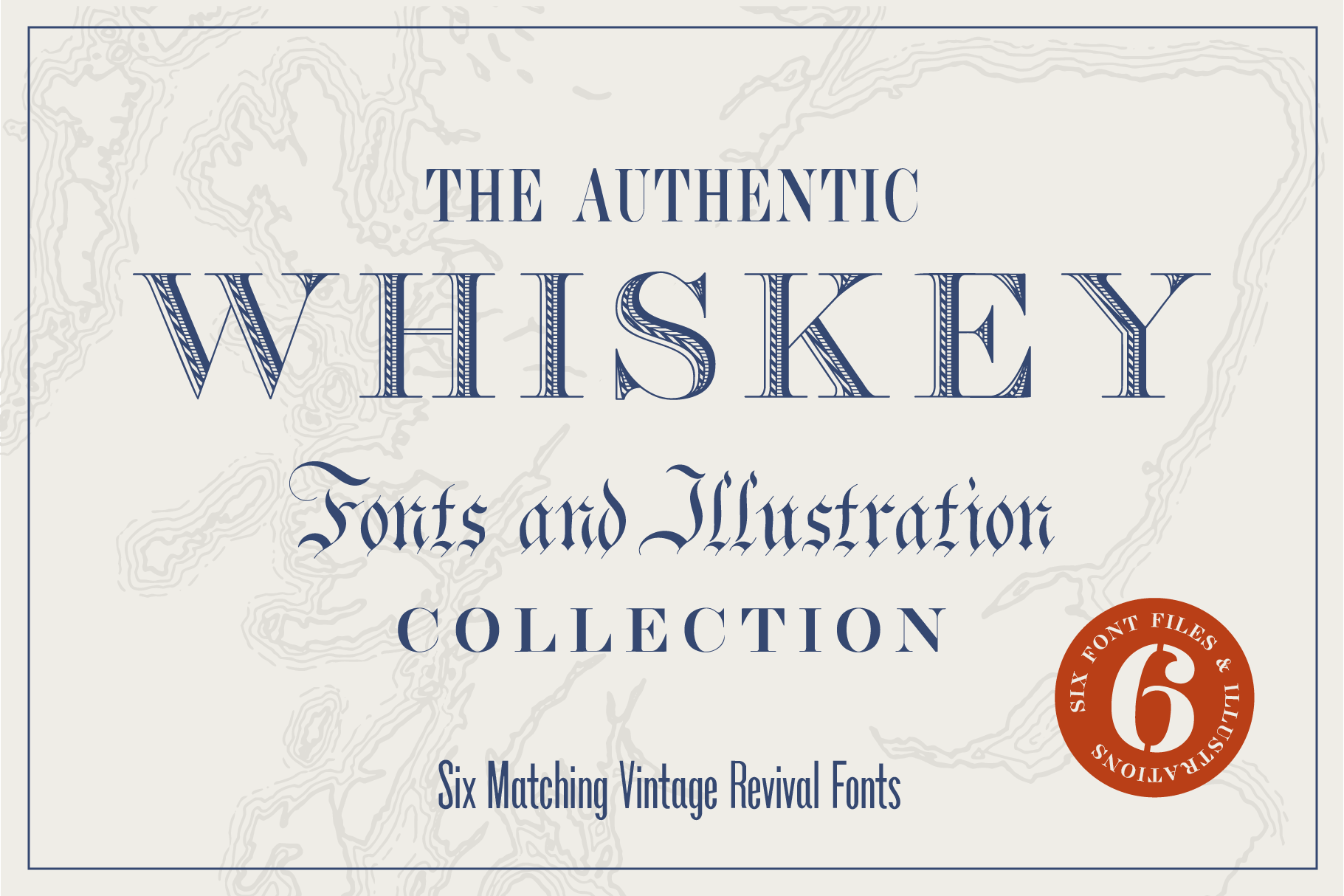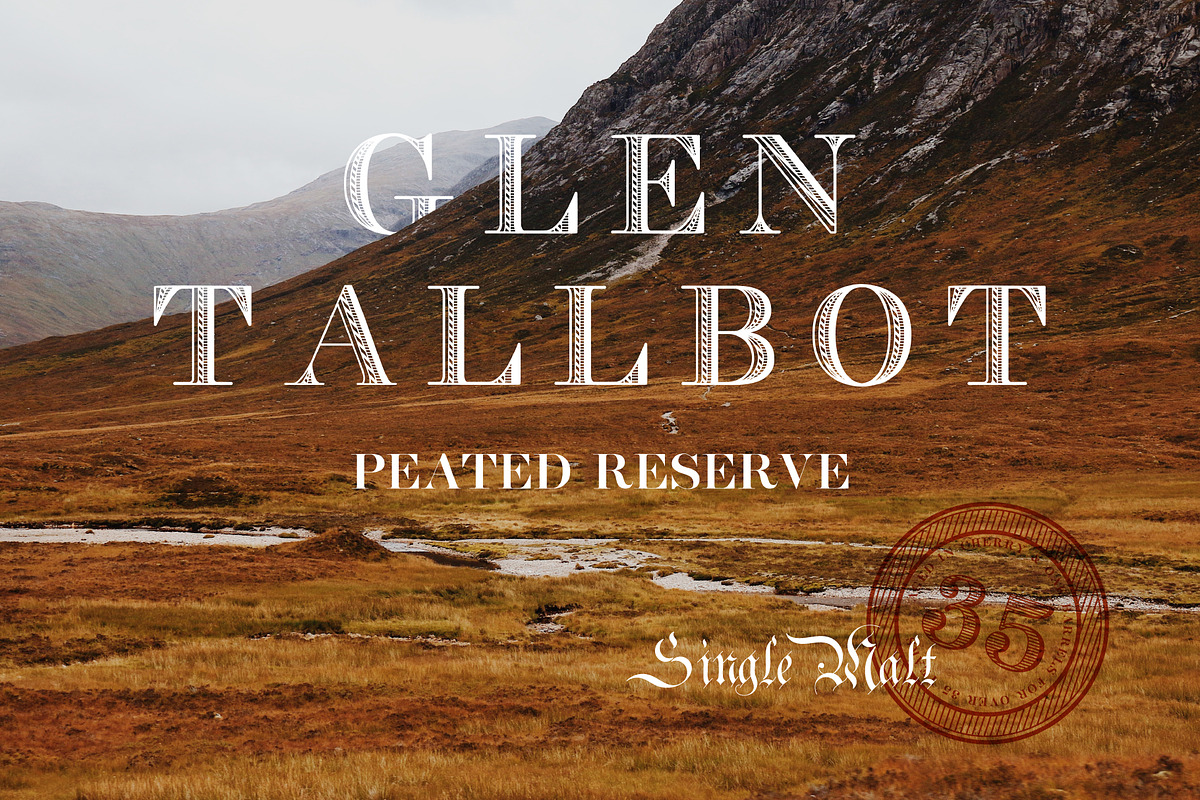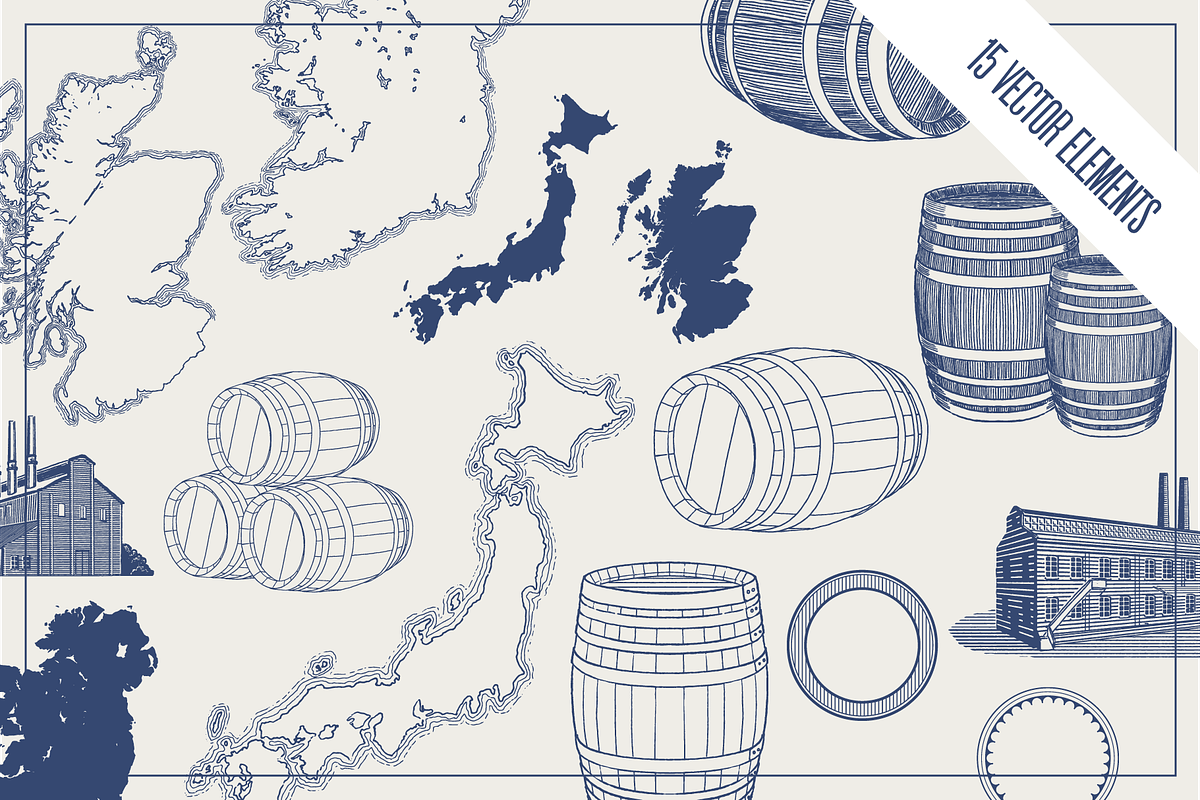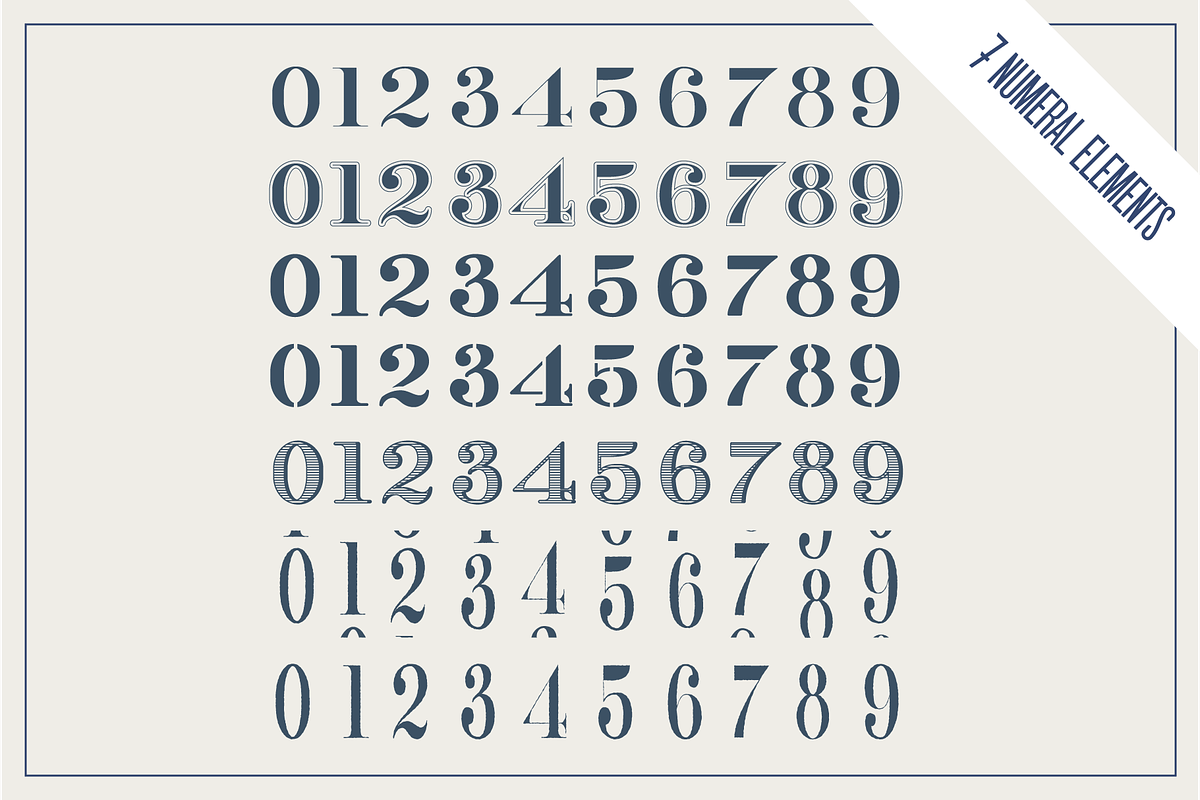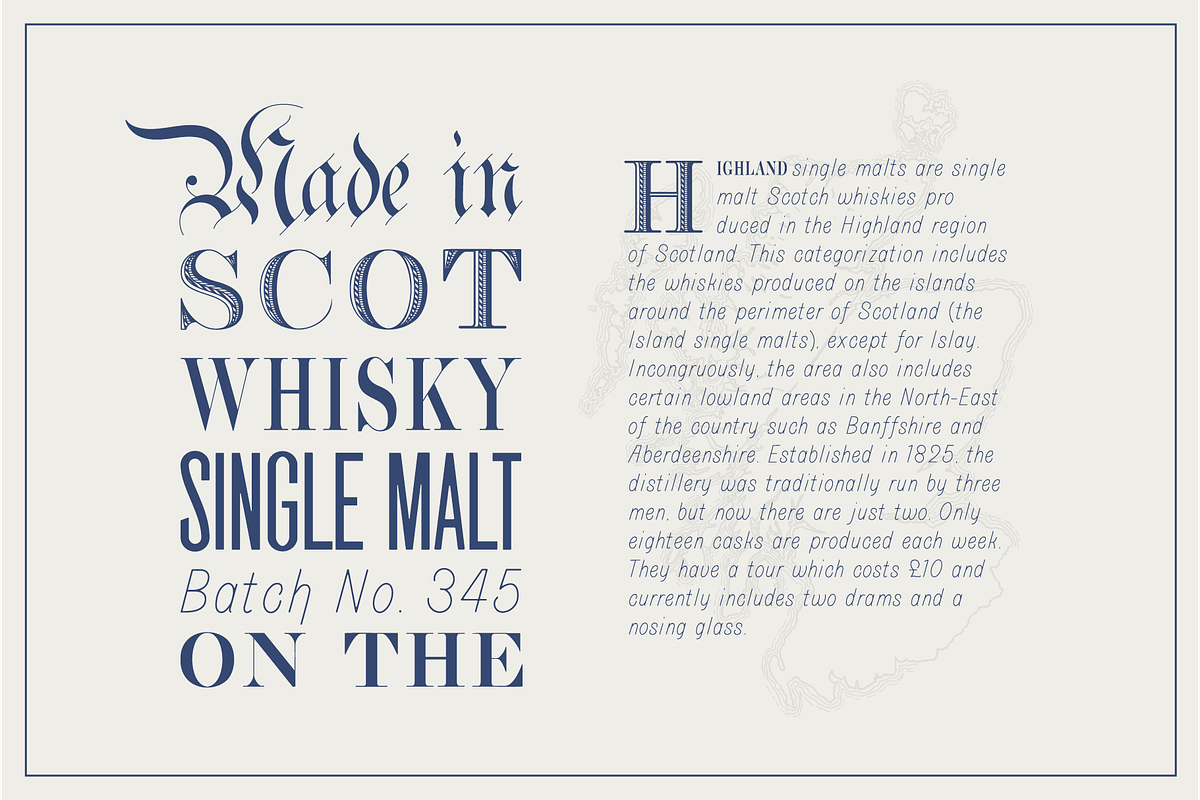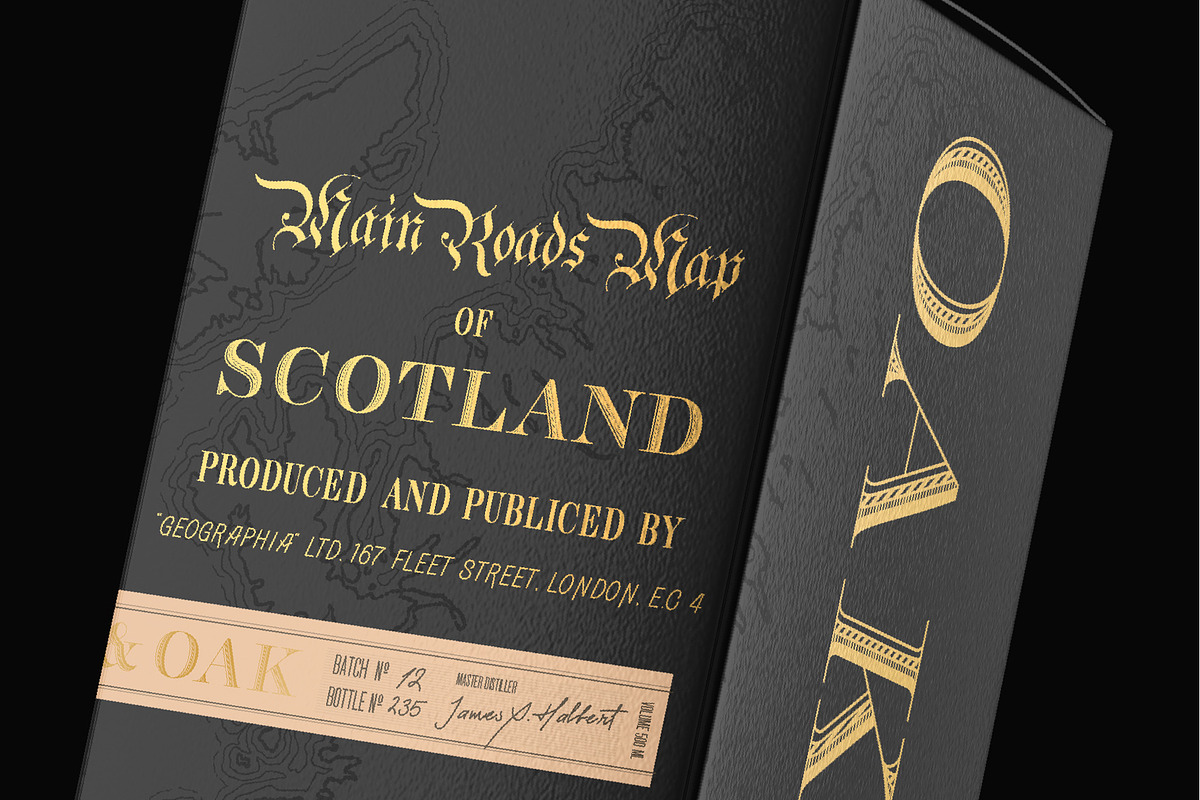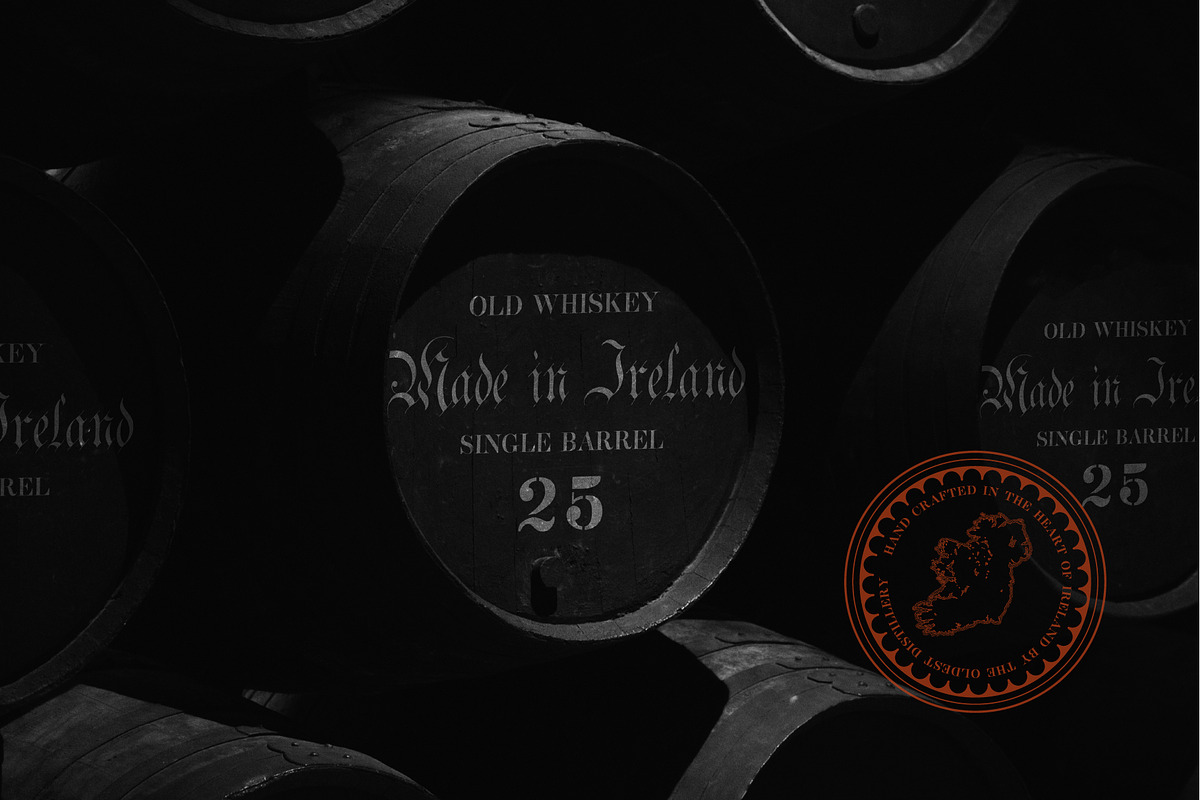
Whiskey Fonts Bundle
SALE 50% OFF - Do you love a whisk(e)y? This handmade vintage inspired font and illustration collection was created with package design in mind. Using a 19th century type specimen book as inspiration, this collection features the most authentic font combinations. They look amazing together and can be used for modern and vintage designs.
Six OpenType fonts, including:
- Whiskey Ornamental
- Whiskey Roman
- Whiskey Narrow
- Whiskey Gothic
- New Bowman Grotesque
- New Circular Gothic